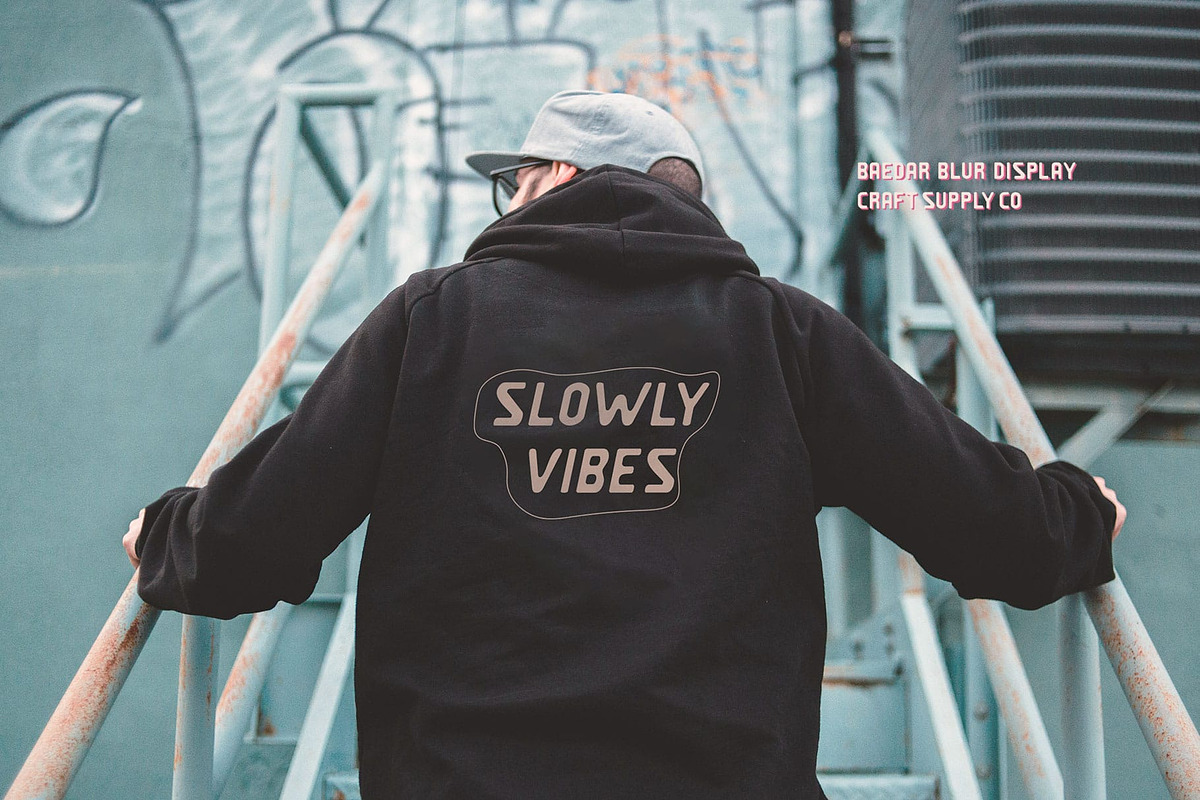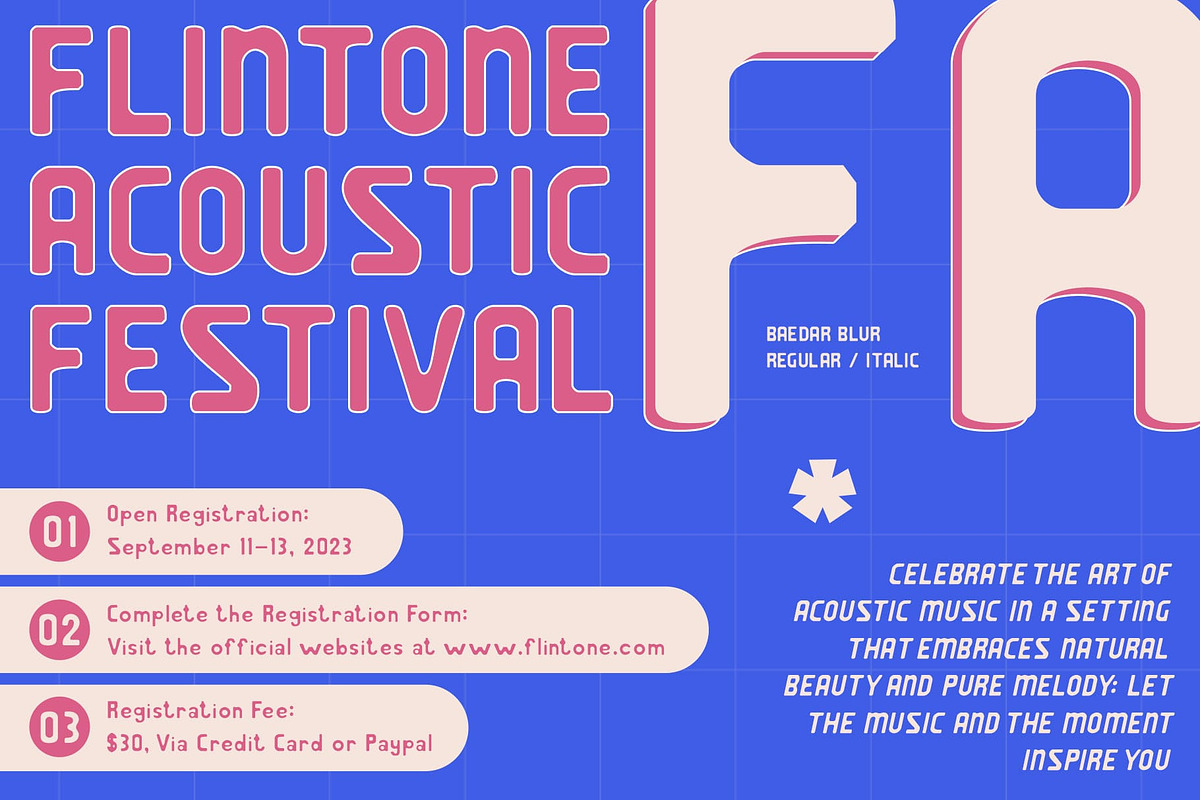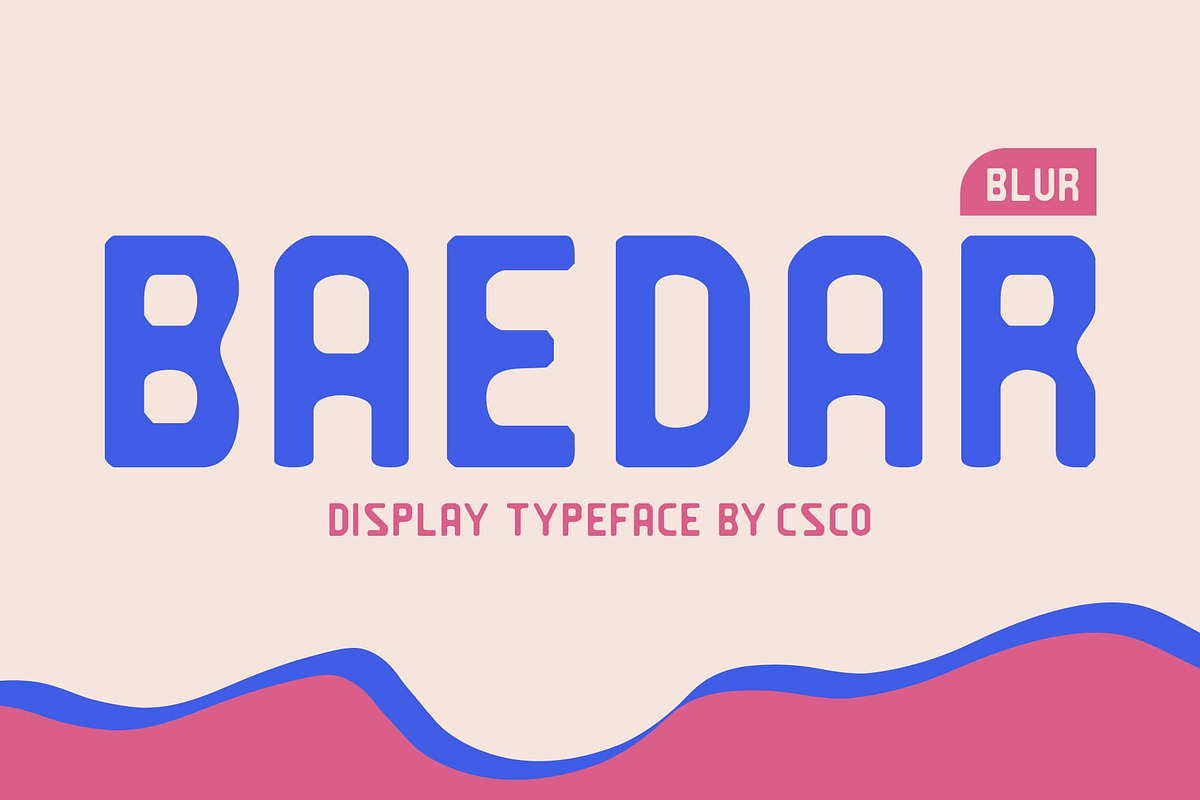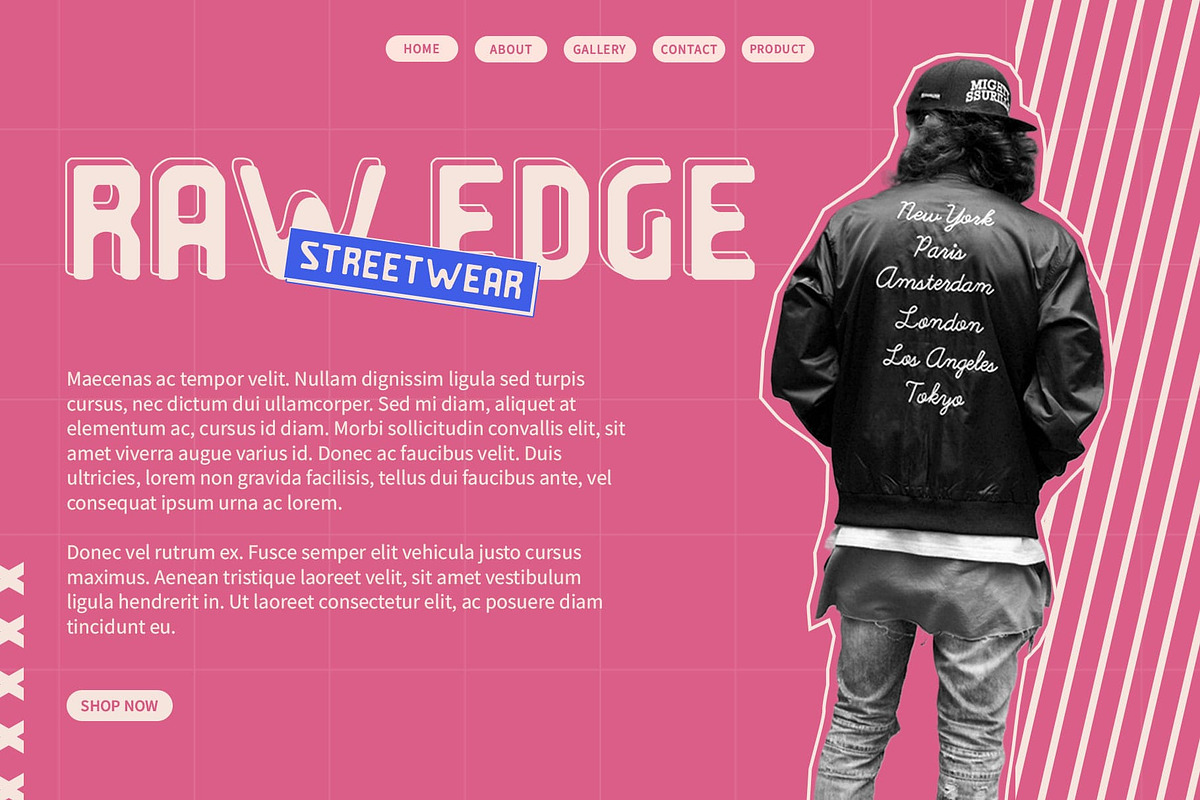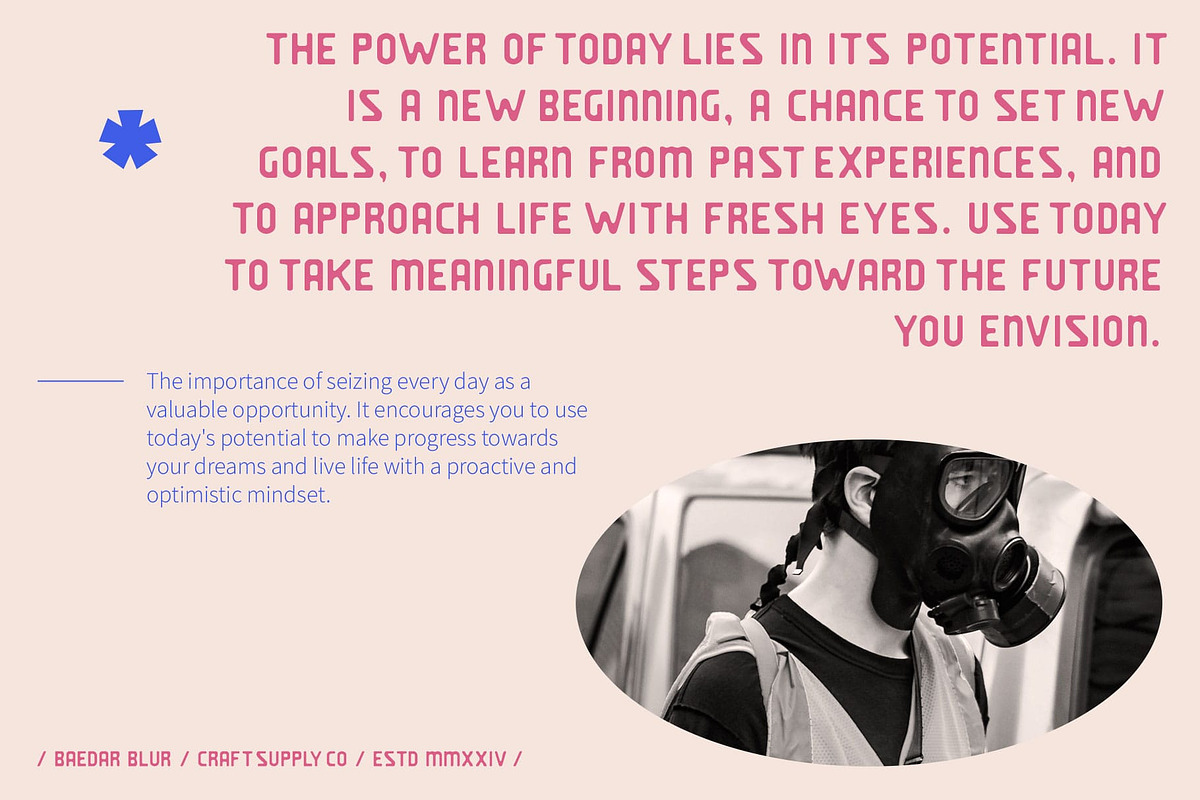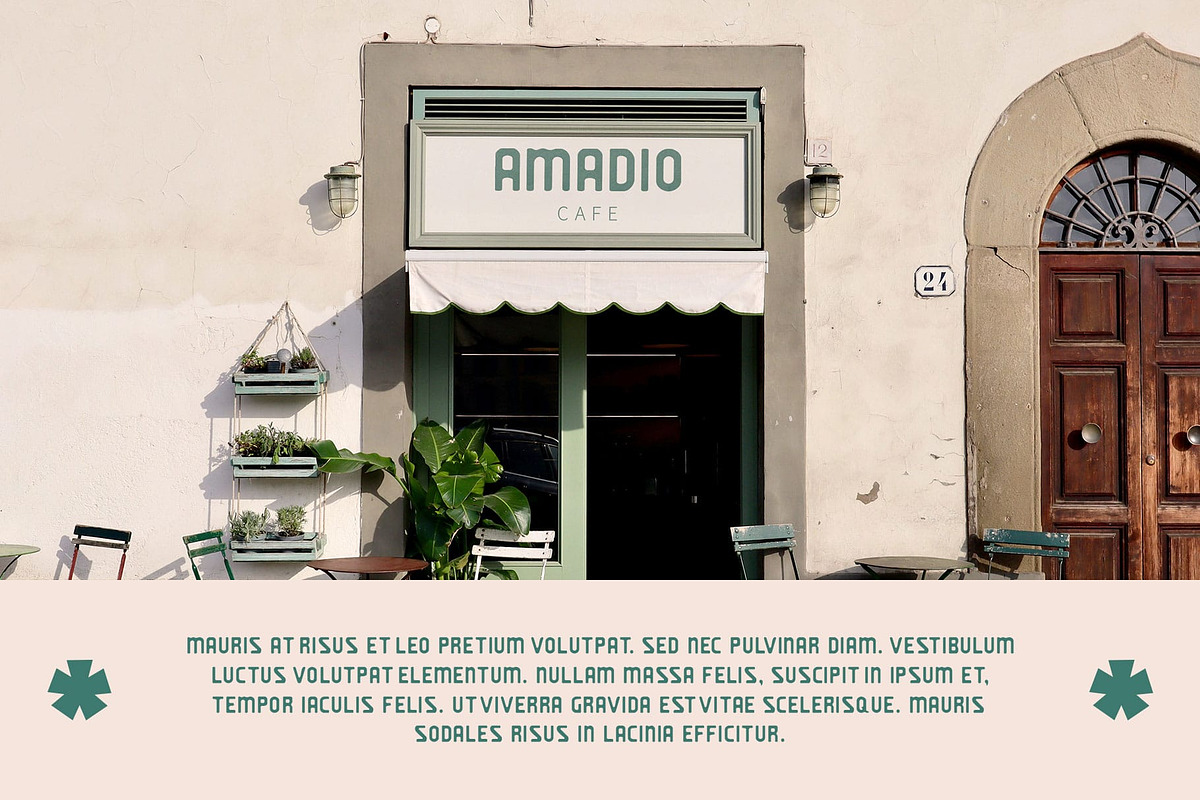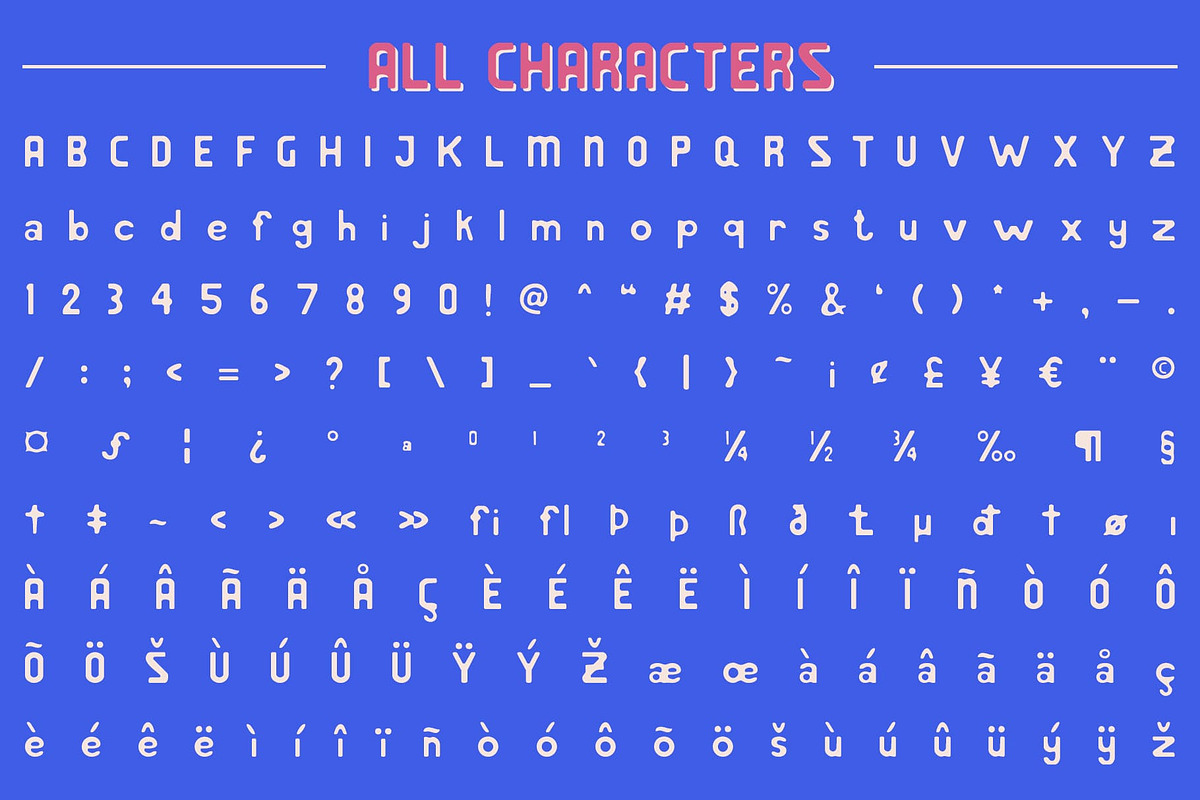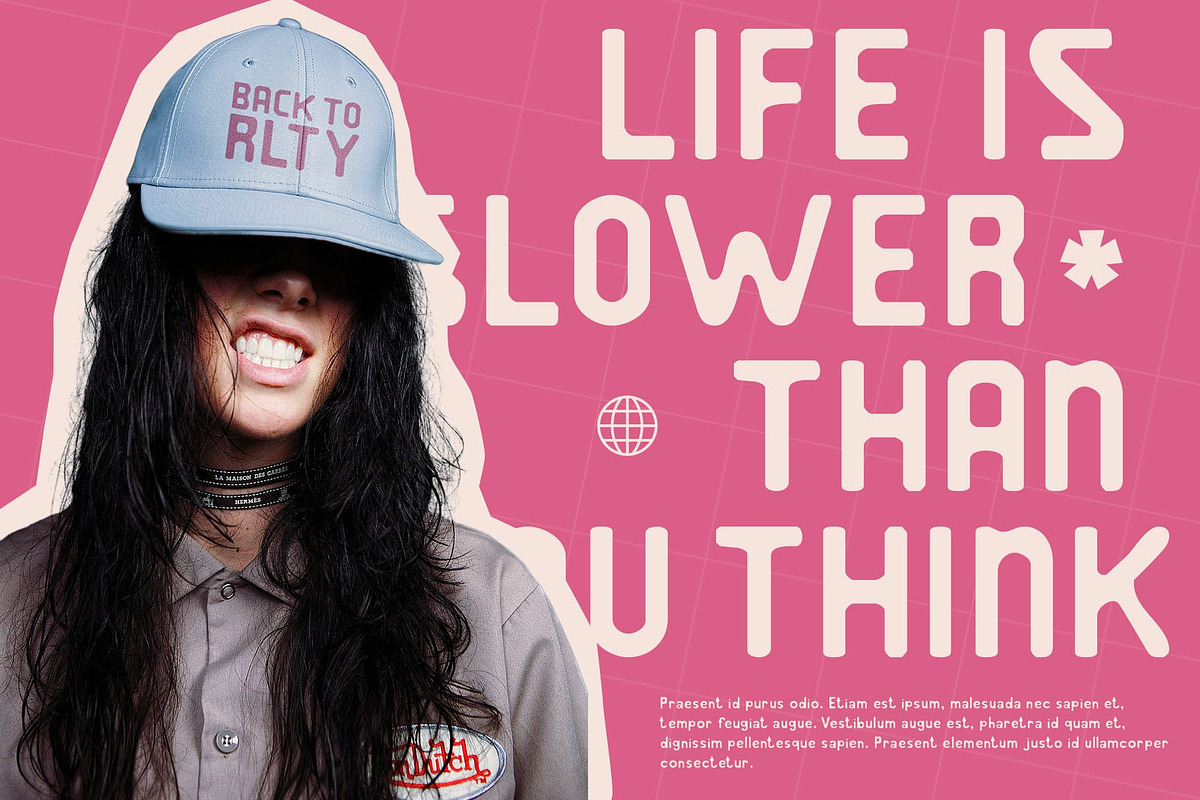
Baedar Blur
Baedar Blur Font: Bold Modernity with a Soft Touch
Rounded Sans-Serif with Bold Impact Baedar Blur is a sans-serif font that features a rounded and bold shape, enhanced with a distinctive blur effect. The font’s boldness ensures clear, assertive readability, making it an excellent choice for designs that demand strong visual impact. Its rounded form adds a friendly and approachable touch, balancing the assertive nature of the bold design with a sense of warmth.
Blur Effect for Contemporary Depth The blur effect introduces an extra layer of dimension and depth to Baedar Blur, creating a smooth and contemporary visual feel. This artistic touch softens the bold edges, giving the font a unique, modern look that stands out while maintaining an inviting appearance. The combination of rounded shapes and the blur effect results in a visually appealing and sophisticated design.
Versatile for Modern and Artistic Projects Whether you’re designing impactful headings, eye-catching posters, or dynamic marketing materials, Baedar Blur provides a modern and artistic touch. Its blend of boldness and smoothness ensures it remains effective and visually engaging across a range of design contexts, making it a versatile choice for projects that aim to capture attention with a contemporary and stylish look.
- Baedar Blur Regular
- Baedar Blur Italic